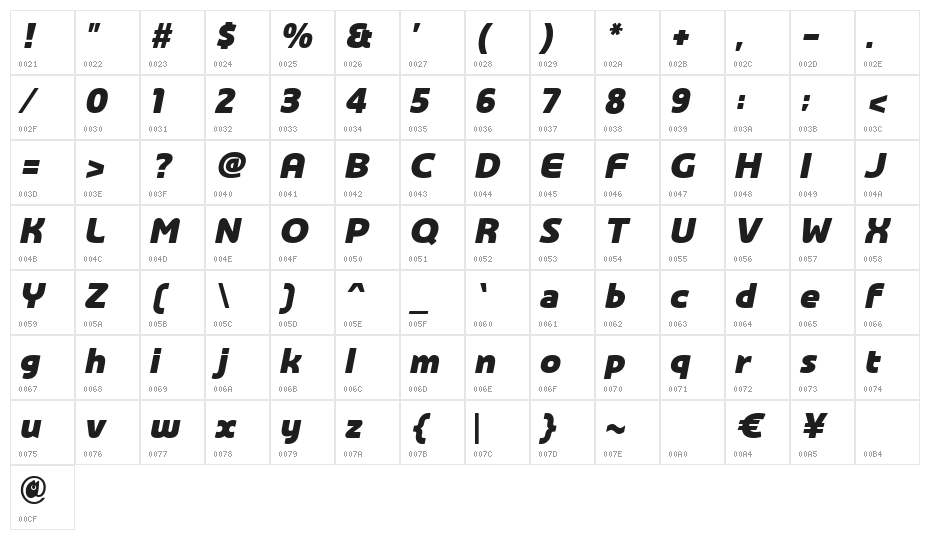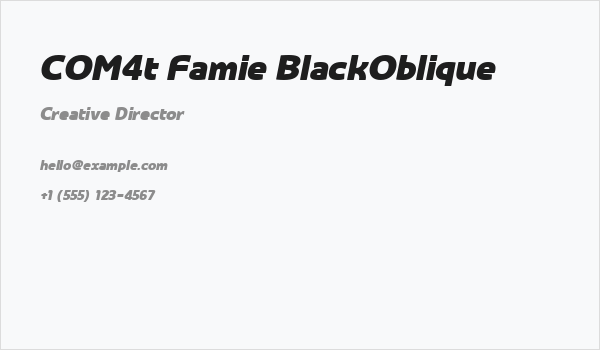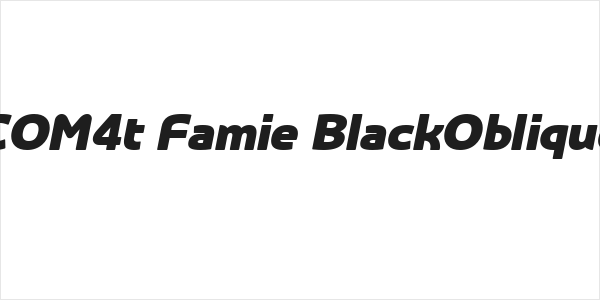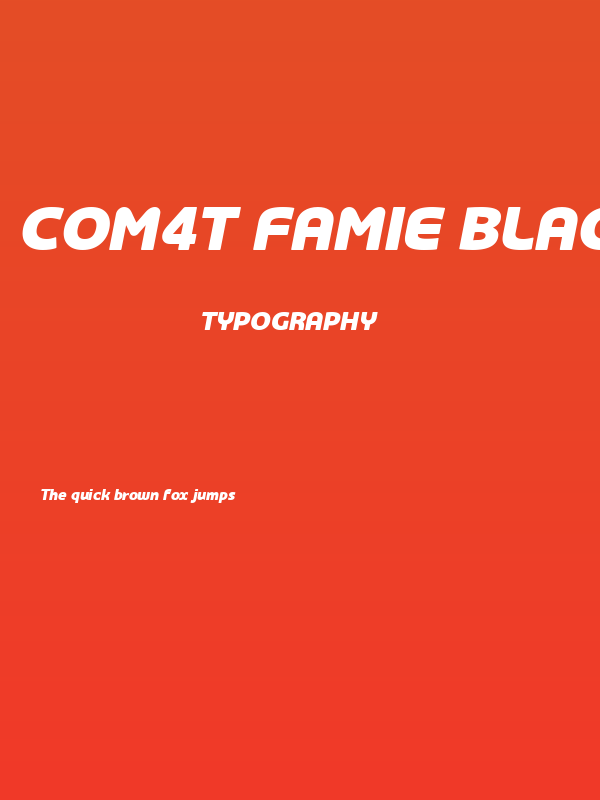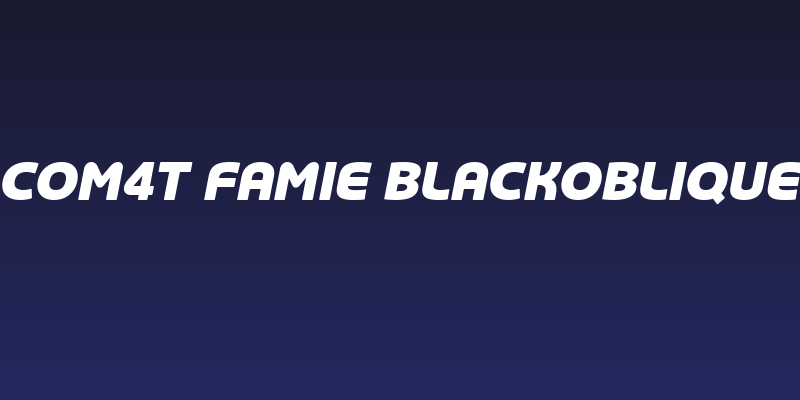
COM4t Famie BlackOblique Font
COM4t Famie BlackOblique Description
This font features bold, rounded characters with a strong oblique slant, giving it a dynamic and energetic appearance. The letters are wide and have a substantial presence, making them highly legible and impactful. The rounded edges soften the overall look, adding a friendly and approachable feel. The numbers and special characters maintain the same bold and slanted style, ensuring consistency across all elements. The font's design is modern and versatile, suitable for a variety of applications where a bold statement is needed.
| Use Case | Headlines, Logos, Advertising |
| Proposed Projects | Ideal for branding, advertising, headlines, and any design project requiring a strong visual impact. |